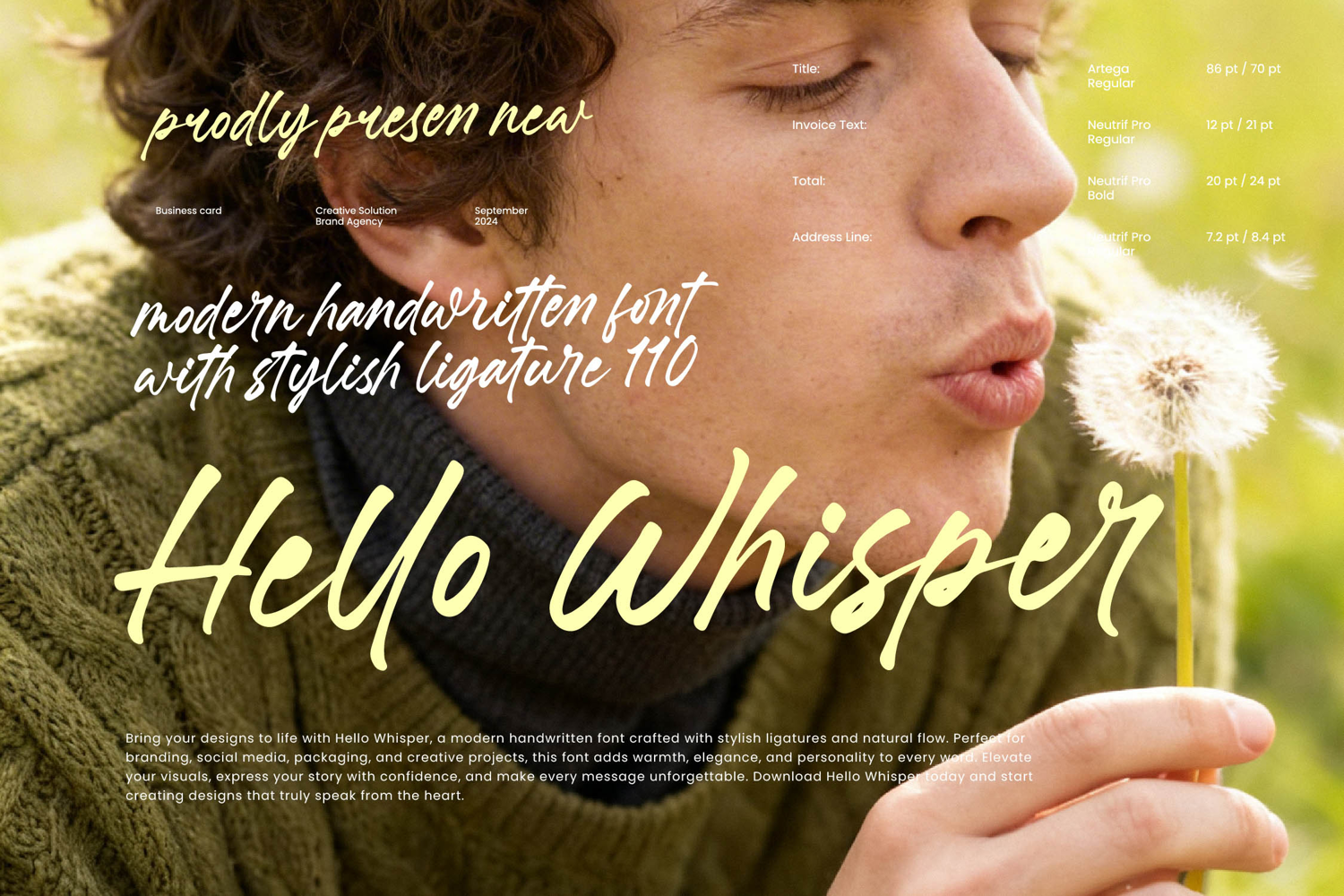
Hello Whisper - Modern Handwritten Font
Inject immediate warmth and personality into your designs. Hello Whisper - Modern Handwritten Font captures the spontaneous elegance of genuine handwriting, offering a compelling visual voice that speaks directly to the audience. This isn't just a typeface; it’s an emotional connector, featuring a smooth, natural baseline flow and varying stroke weights that lend an effortless, highly personalized touch. Use Hello Whisper - Modern Handwritten Font to instantly elevate the perceived value and authenticity of any creative endeavor, ensuring every message feels uniquely crafted and sincere.